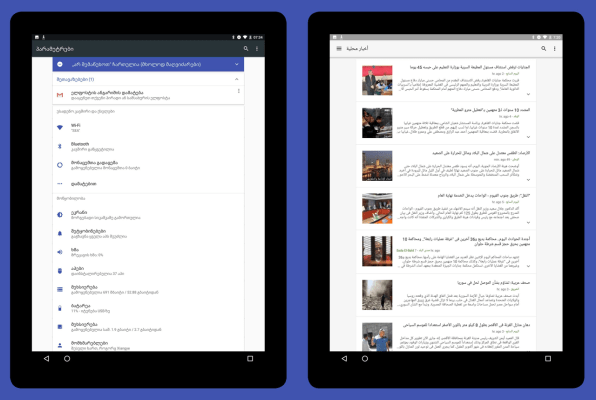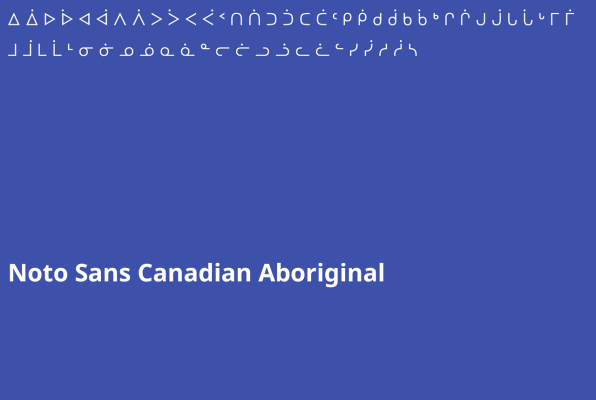
Can you imagine typing up an email, sending it off, and being told by the recipient that its contents were gobbledygook? Of course not. For most of us, whatever we type is instantly legible to our peers.
But that’s not true for everyone on earth. If you’re part of a language spoken by only 20,000 other people, for instance, or if you’re a scholar trying to write out an ancient text, there may be no typeface for you to use at all. And even if there is, what happens as soon as you try to share that document with someone else who might not have pre-installed that font? All they can see is a bunch of rectangles.
Tofu, it’s called in the font industry.
For the last five years, Google and the font giant Monotype have been working together to fill in all those tofu squares–hundreds of thousands of them. With the help of hundreds of designers, researchers, linguists, and cultural consultants, the two companies created Google Noto (the name derives from “NoTofu”). It’s a typeface family of the world’s languages–many in the minority, or even extinct–which can be rendered in serif or sans serif across eight weights, totaling more than 300,000 unique glyphs in all. As a point of comparison, Helvetica supports 97 different languages. Google Noto supports more than 800. According to Google, Noto is nearly 10 times larger than the nearest universal typeface, Arial Unicode.
“For everyone in the typographical field, this is a scale of language and script support that’s never been attempted before,” says Kamal Mansour, linguistic typographer at Monotype. “And it would be hard to imagine anyone sponsoring this other than Google. It’s a very big investment.”
How Fonts Work At The Language Level
To understand the scope of Noto, you have to first get a firm grasp of how fonts work. Each letter of every language around the world–even our beloved emojis–has a unique number. These numbers are managed by the Unicode Consortium. Of course, many of these languages share common letters–English and Spanish have the same letters, after all. In such cases, an A in English actually shares the same number as an A in Spanish.
It’s just how it works.
If you write in a language not recognized by Unicode, then you actually apply to the organization, making a case for your distinct written language and providing all of the glyphs. Then, you might face a wave of verification and fact checking, and finally, the Consortium can admit you as a new “script.” Any single script could encapsulate lots of different languages that share characters, by the way. The Latin script, for instance, includes 100 or so different languages.
But here’s the catch: Just because your language’s script is listed in Unicode doesn’t mean you can actually type in that language. Remember, Unicode is just a directory of numbers. You need letters! And to type in these letters, someone has to design a typeface that corresponds to those codes.
“If you only have codes, and no fonts to represent those codes, you’re crippled,” says Mansour. “You can’t really make it readable to other people. So basically, at the beginning of this project, Google wanted to make fonts available to every script that’s in Unicode. That’s a huge undertaking.”
How Huge?
Whereas Mansour estimates that most of the world has been pretty well represented by Unicode since its founding 20 years ago, it has continuously received new applications for the last 15–no doubt fueled by people in formerly disconnected parts of the world as they get online, often via smartphones. Monotoype can’t cite numbers of unfulfilled/unrepresented languages within Unicode. But over the past five years, as more and more applications poured in, the number steadily grew. For instance, Unicode support for Adlam, Urdu Nastaliq, Tibetan, and Armenian have all been added only recently.
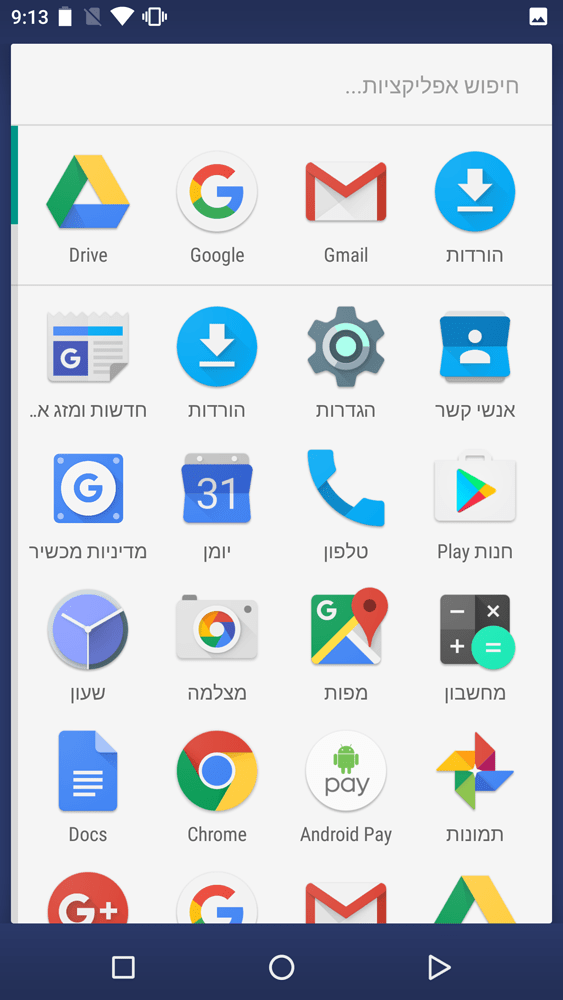
Google wanted to fill the un-rendered holes in Unicode’s libraries, and enlisted Monotype to take on the task. Monotype responded with a highly coordinated, brute force attack on the project. It consulted with academics and cultural specialists. It designed some work in-house and some out of house. Getting each project done was a hustle unto itself. When working on a script for Tibet, it had its work fact-checked by a Buddhist monastery filled with monks who’d read a lot of ancient Tibetan texts. While developing a script for Burmese, Monotoype tracked down a designer in England who’d specialized in the typography and languages of southeast Asia while at school, enlisting him to develop it.
“We use people’s experience,” says Mansour. “Sometimes we’re very fortunate to find people who’ve immersed themselves in that culture.” Today, Noto coverers 100% of the languages covered in the Unicode 6.1 standard (from early 2012), while they’re working on getting 100% of languages in the latest version, Unicode 9.
Designing A Typeface For Everyone
Mansour describes Noto’s aesthetic as “uncomplicated, respectful, harmonious, and balanced,” but he very carefully doesn’t call it a font or typeface. Whereas Monotoype attempted to translate notable elements of Noto across every script and language–the hooks of serifs, the distinctive geometric curves of various letters–it’s being billed as a “family of typefaces,” or a series of typefaces that might not look like twins, but at least cousins.
“The idea is that any two fonts in the family should be able to cohabitate on the page, peacefully coexist,” says Mansour.
Still, it raises a question: Why would Google invest such untold sums into a project like Noto? For one thing, it brings more people online, and gives them the opportunity to use Google services. But converting the world’s written languages to fonts serves another purpose. Allowing someone to type in their language, or convert an ancient manuscript from a JPEG scan to an actual document, doesn’t just put more information on the internet. It allows this information to be indexed, cited, and pulled forth in a search.
“They become Googleable!” Mansour laughs.